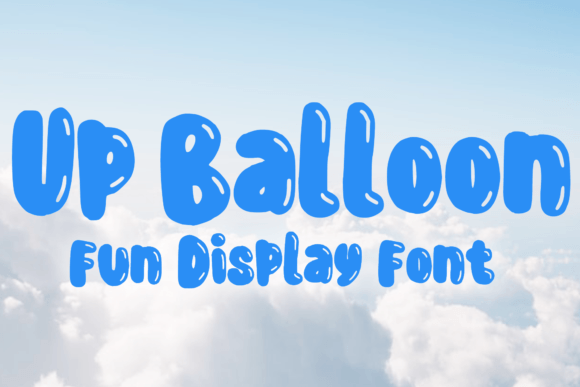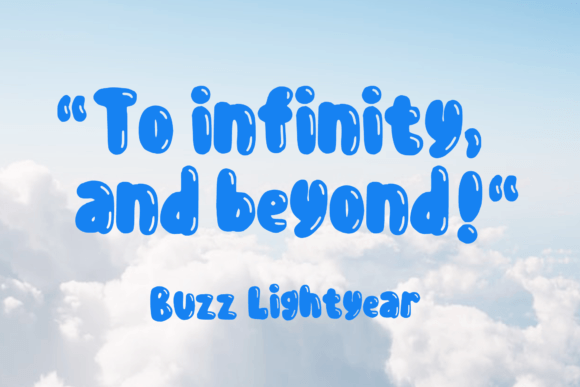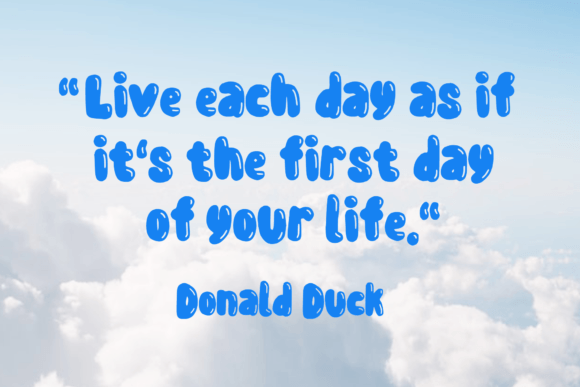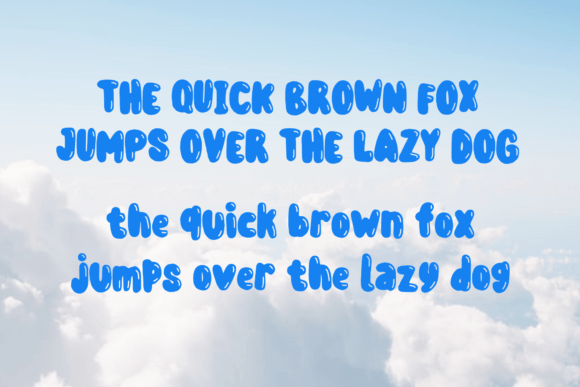
Up Balloon Font
Up Balloon is a fun bold balloon-themed display font. You can use it for anything ranging from t-shirts, kids’ book designs, and greeting cards to stickers and posters, or anything that needs a playful touch. Fall in love with its incredibly versatile style and use it to create lovely designs!